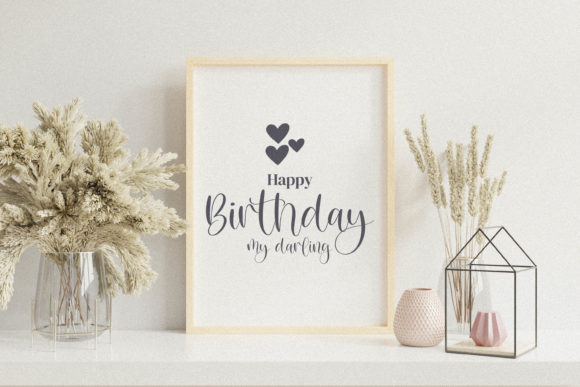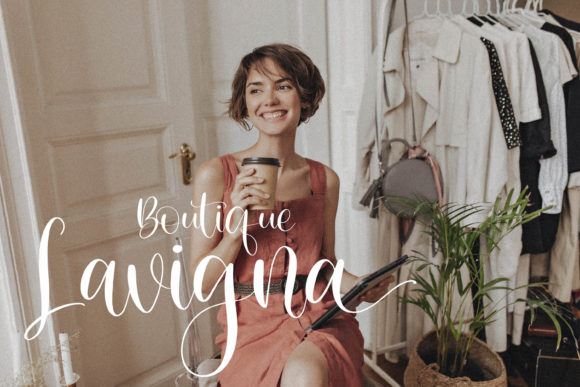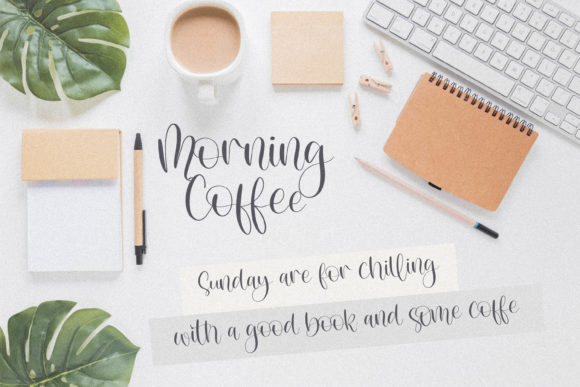
Introduction to Beautiful Lativa Font
Have you ever found yourself stuck in a creative rut, searching for the perfect font to elevate your design project? You know, that moment when you’re scrolling through your phone, scrolling through social media, and you come across a beautifully crafted post that makes you go ‘wow’? For me, that moment happened when I stumbled upon a stunning Instagram post with the Beautiful Lativa Font.
As a designer, I know how hard it can be to find the right font to match your creative vision. But what if I told you that I’ve discovered a font that can take your designs to the next level? Introducing the Beautiful Lativa Font, a delicate script font that exudes elegance and sophistication.
Key Features of Beautiful Lativa Font
- High-quality design resource ideal for creative projects requiring elegant and sophisticated typography.
- Features a transparent background, allowing for seamless integration with various design elements and backgrounds.
- Includes a range of ligatures, swashes, and alternate characters to enhance typographic expression and add a touch of sophistication.
- Designed to work well at various resolutions, from 72 dpi to 300 dpi, ensuring crisp and clear text display in print and digital media.
- Perfect for designers, artists, and writers seeking a beautiful and elegant font to elevate their creative work.
Honest Review: Beautiful Lativa Font
One of the standout features of Beautiful Lativa Font is its versatility. It comes with a transparent background option, making it easy to layer with other design elements. The font itself is highly customizable, offering a range of weights and styles that can be adjusted to suit different design needs.
Here are some things that worked well for me:
- Easy to use and customize
- Includes a transparent background option for seamless layering
- ⚠️ Limited character set, which may not be ideal for longer texts
- ⚠️ Some users may find the font too ornate or distracting
Overall, I’m impressed with Beautiful Lativa Font. While it may not be perfect, it’s a solid design resource that’s well-suited for creative projects. With a little experimentation, I was able to achieve some great results. If you’re looking for a high-quality font with a lot of character, Beautiful Lativa Font is definitely worth checking out.
Tips for Getting the Most Out of the Font
To get the most out of the Beautiful Lativa Font, use it with a transparent background to create a clean and modern design. You can also pair it with other fonts to create a unique and creative look.
The Beautiful Lativa Font is commonly used in logos, branding materials, and social media graphics. It’s also great for creating high-quality presentations and documents with a professional look.